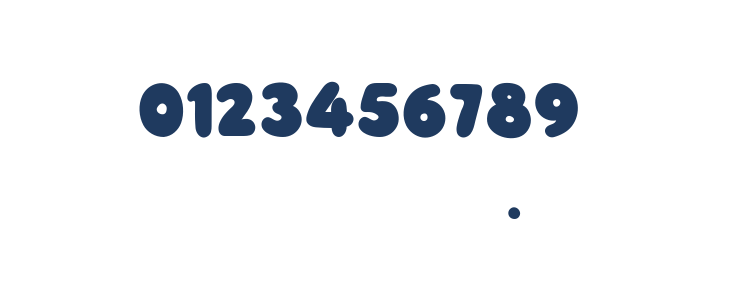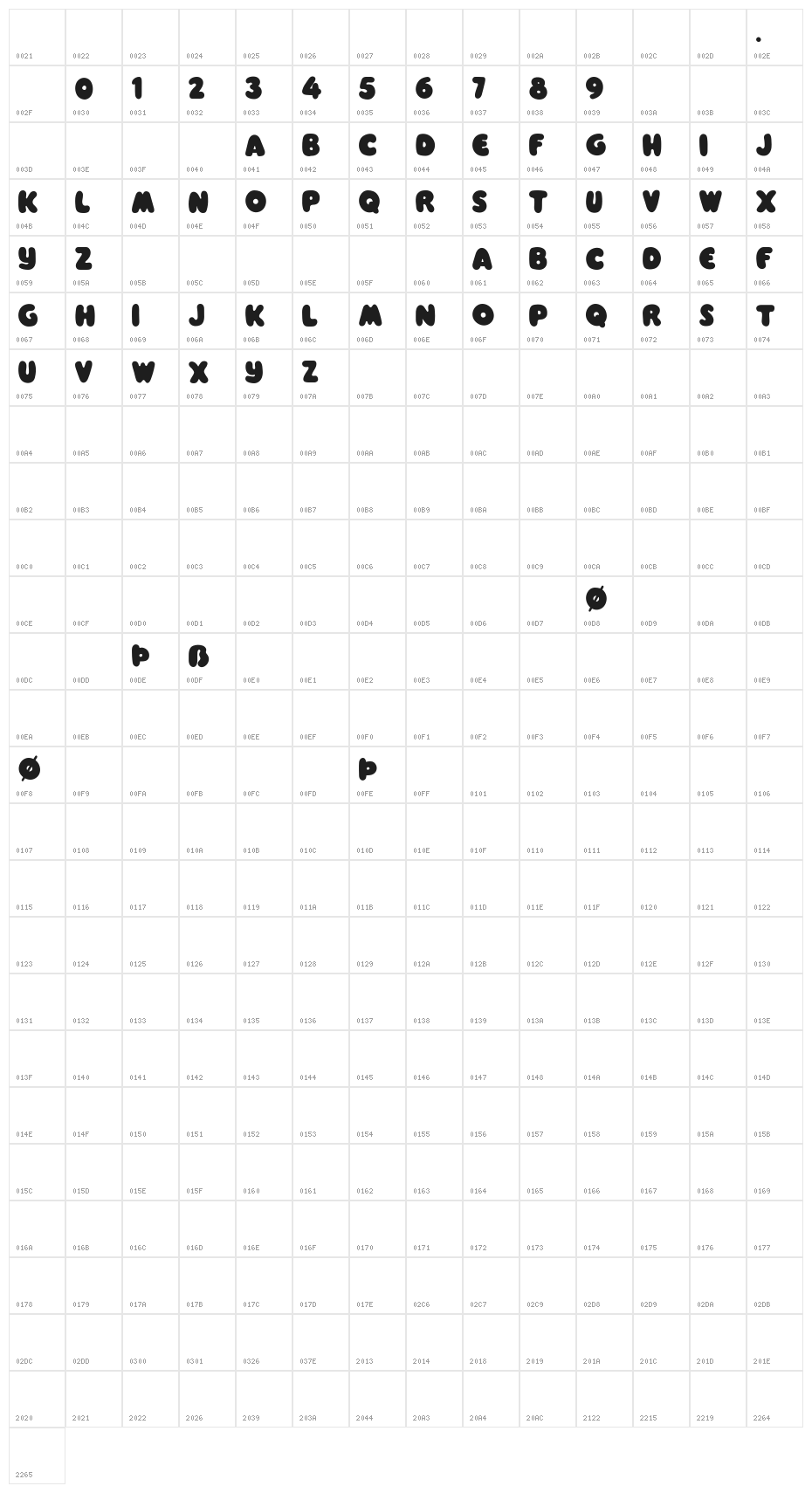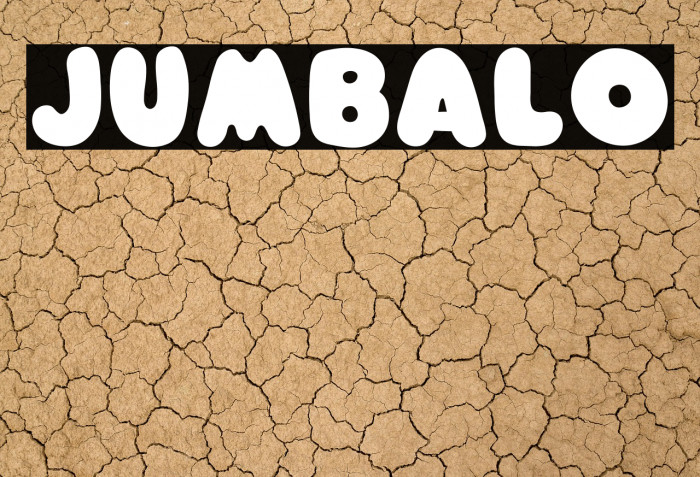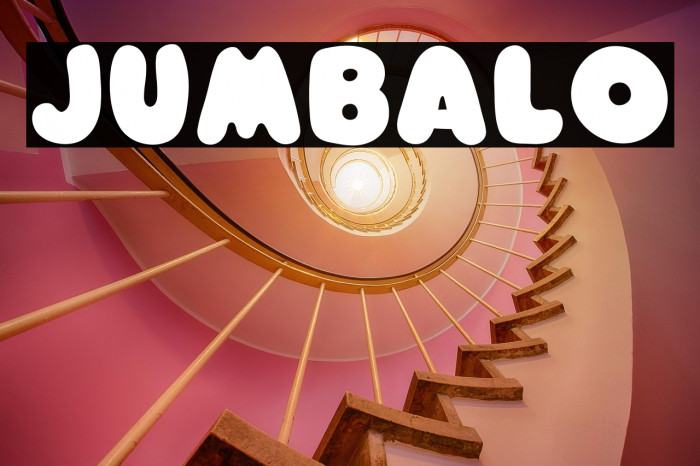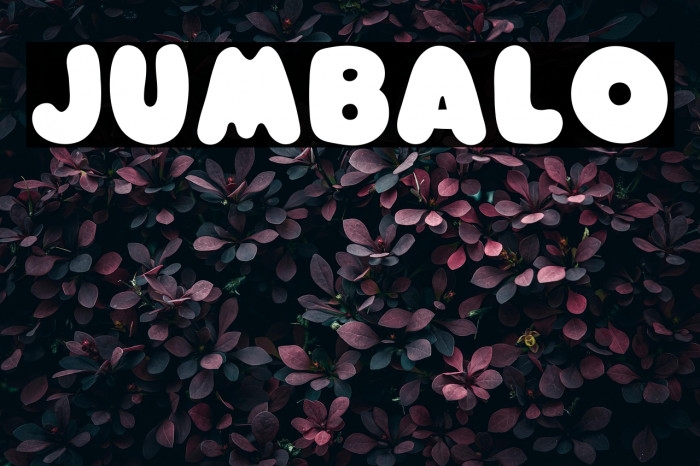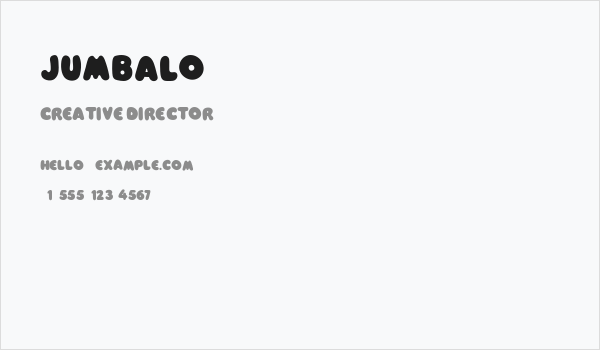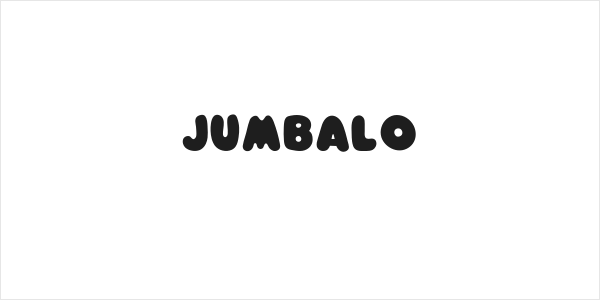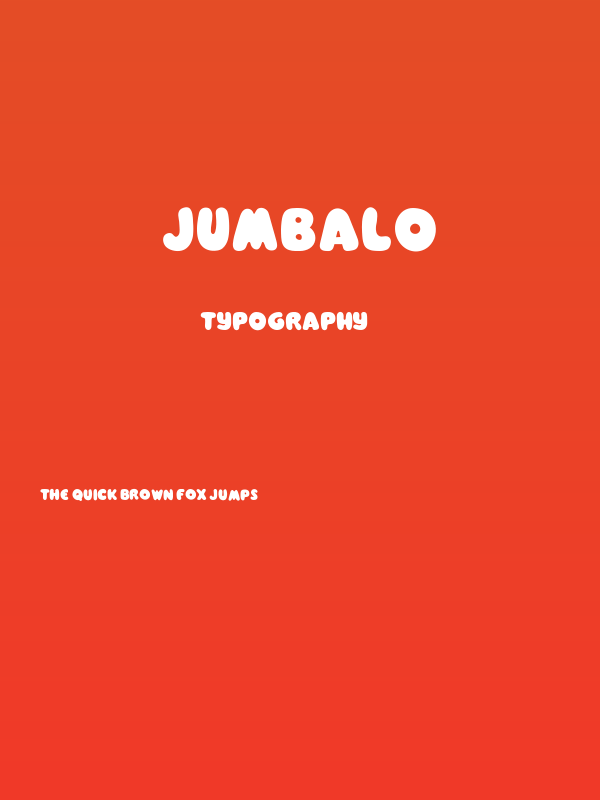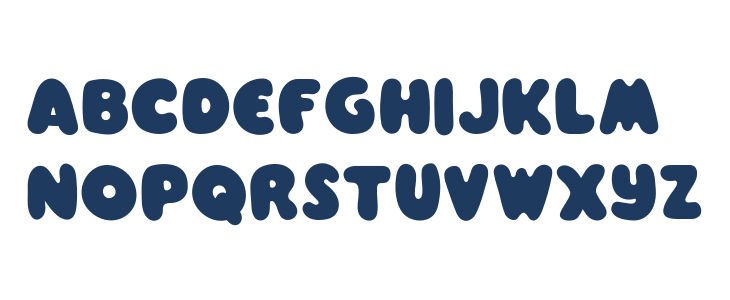
Jumbalo Font
Jumbalo Description
This playful and bold font features rounded, bubble-like characters that exude a sense of fun and whimsy. The letters are thick and substantial, with a consistent stroke weight that gives the font a cohesive and unified appearance. The rounded edges and lack of sharp angles contribute to a friendly and approachable aesthetic, making it ideal for projects that aim to convey warmth and creativity. The font maintains a uniform width across all characters, ensuring readability while adding a touch of uniqueness with its exaggerated curves and soft forms.
Overall StylePlayful, Fun, Whimsical
Proposed ProjectsIdeal for children's books, playful branding, party invitations, and creative posters.